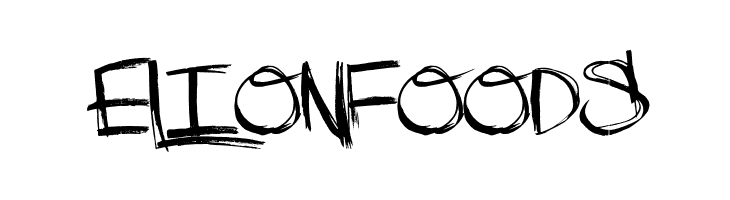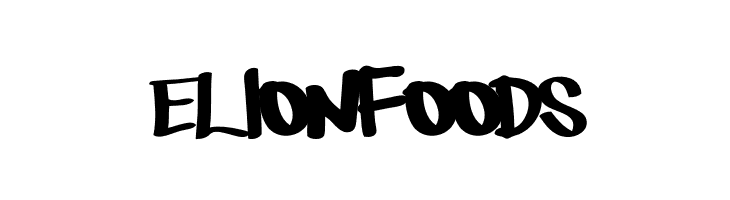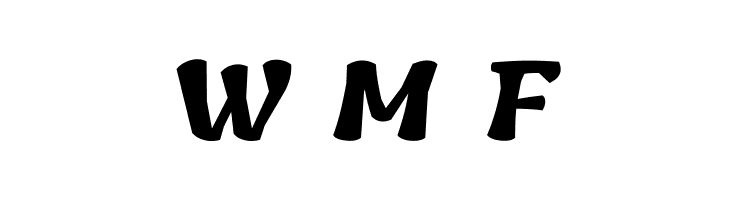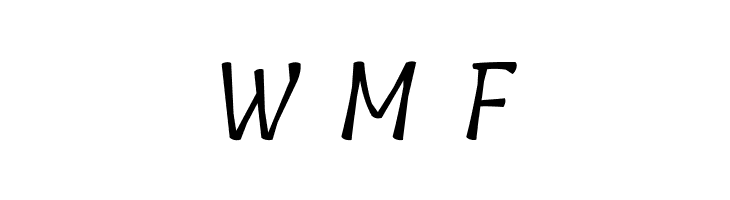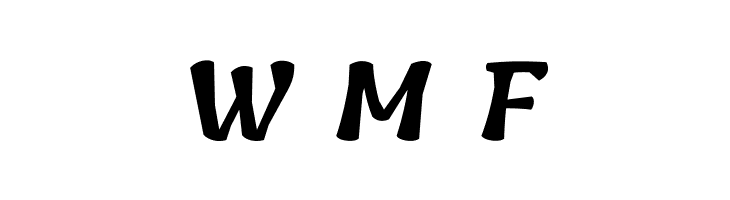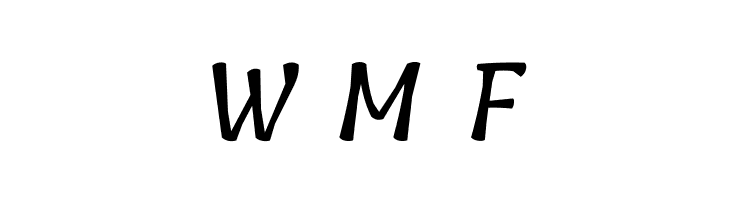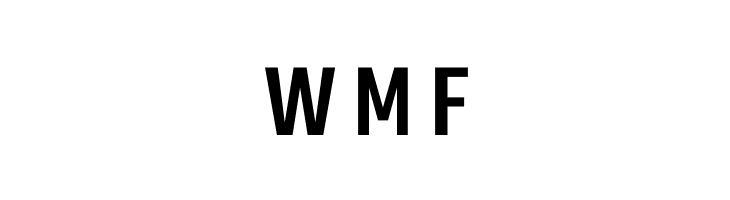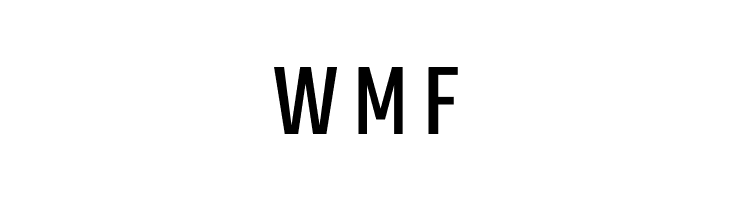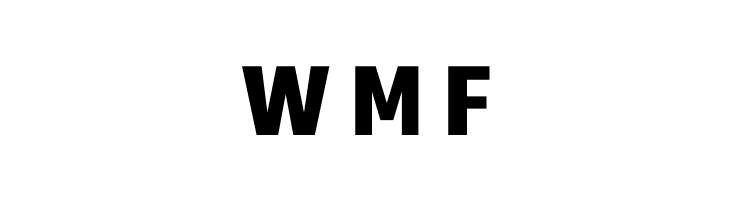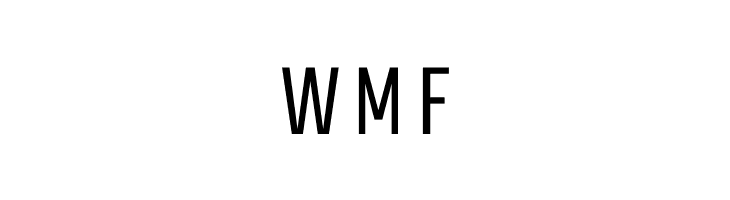
A bold, flowing script font with dynamic, connected strokes.
A bold, handwritten-style font with a playful and dynamic appearance.
A tall, narrow, and uniform font with a playful yet sophisticated style.
A tall, narrow, and playful font with a hand-drawn, bold appearance.
A bold, distressed font with a rugged, vintage aesthetic.
A slender, hand-drawn font with elongated strokes and a whimsical style.
A playful, rounded sans-serif font with smooth curves and a friendly appearance.
A textured, distressed sans-serif font with a vintage, hand-crafted look.
An elegant script font with flowing, handwritten-style letterforms.
A playful, hand-drawn script font with a rough, textured appearance.
A dynamic cursive script with elegant, flowing lines and a handwritten appeal.
An ornate, calligraphic font with elegant swirls and flourishes.
A vintage, typewriter-style font with a textured, handcrafted appearance.
A lively, handwritten-style font with smooth, fluid strokes and moderate contrast.
A bold, playful font with a handwritten, dynamic style.
A bold, playful handwritten-style font with rounded characters.
A lively, modern script font with a playful yet sophisticated style.
A lively, handwritten-style font with smooth, flowing strokes and a playful rhythm.
A lively and dynamic semi-bold script font with smooth curves and a playful appearance.
A rugged, distressed font with a vintage, industrial feel.
A distressed, textured font with a vintage, handcrafted appearance.
A playful and modern font with circular elements in its design.
A modern, geometric sans-serif font with balanced proportions and medium contrast.
A bold, modern sans-serif font with strong geometric shapes.
A bold, modern sans-serif typeface with excellent readability and versatility.
A modern, bold, and italicized font with medium contrast and smooth strokes.
A modern, minimalist sans-serif typeface with uniform stroke width and excellent readability.
A sleek, modern, and extra light italic font with excellent readability.
A modern, light sans-serif font with clean lines and low contrast.
A sleek, modern, light italic sans-serif font with elegant slant and low contrast.
A modern, clean sans-serif font with excellent readability and versatility.